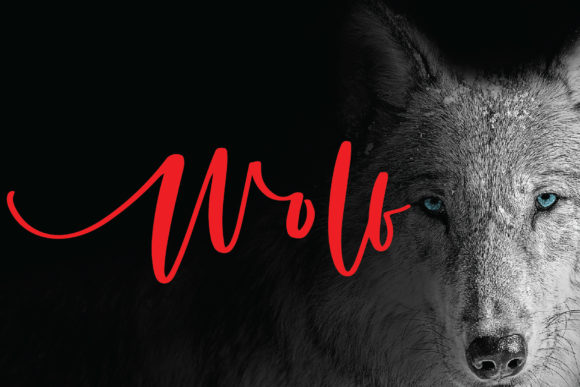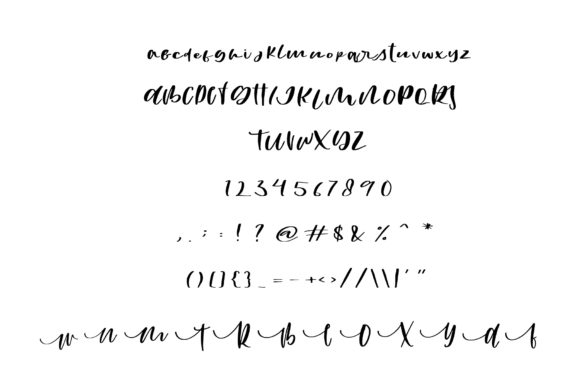
Mistake Font
About Mistake Font
Mistake radiates boldness and personality with its adventurous and natural letters. Use it to add an authentic touch to any design project!